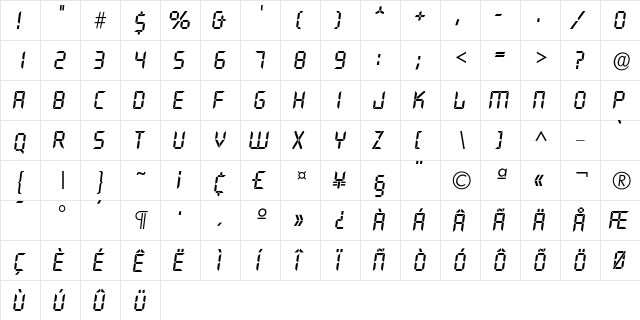
Iquartz-Medium Regular
Design Context for Iquartz-Medium Typeface
Iquartz-Medium is a composed and adaptable typeface that performs quietly and consistently across a wide range of design contexts.